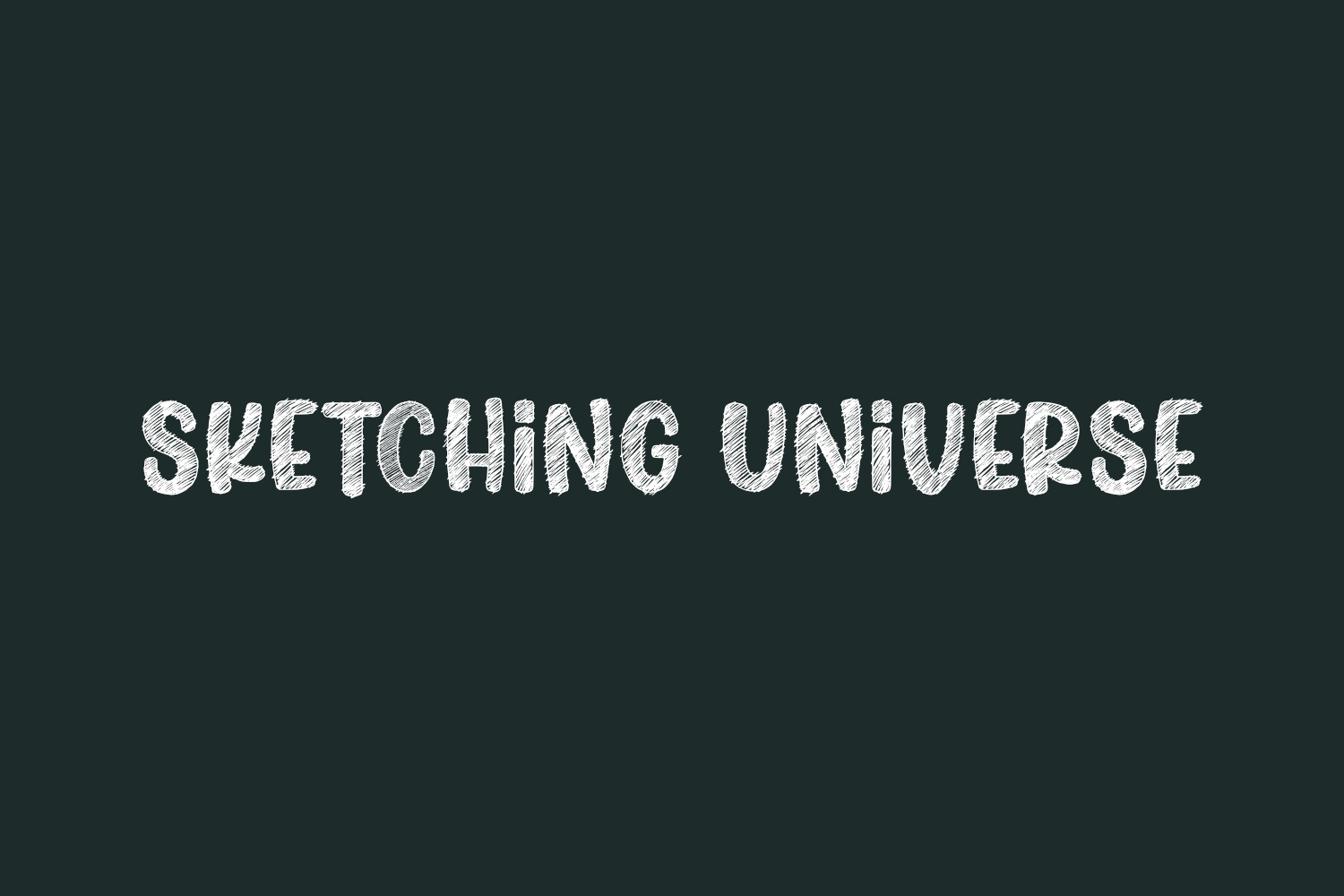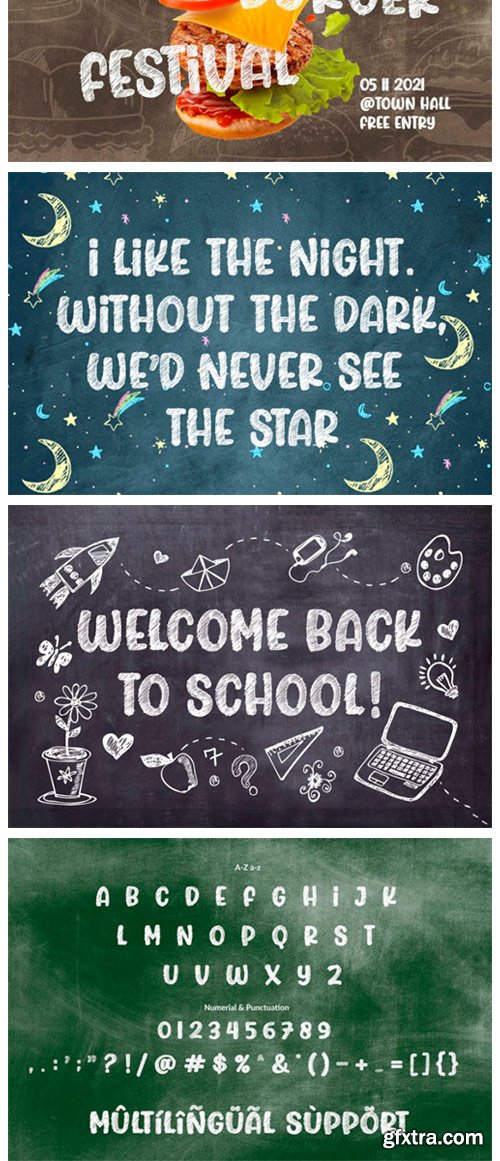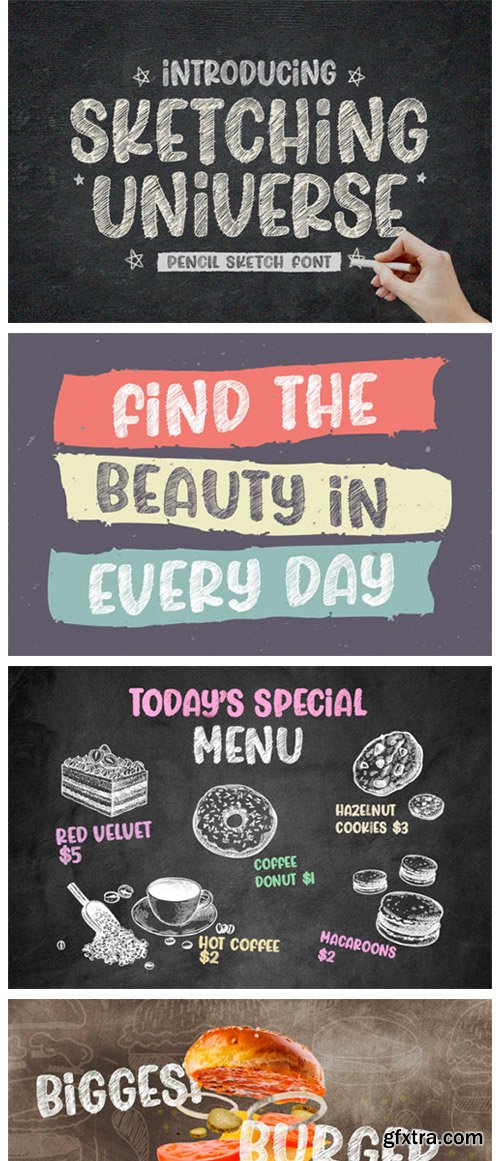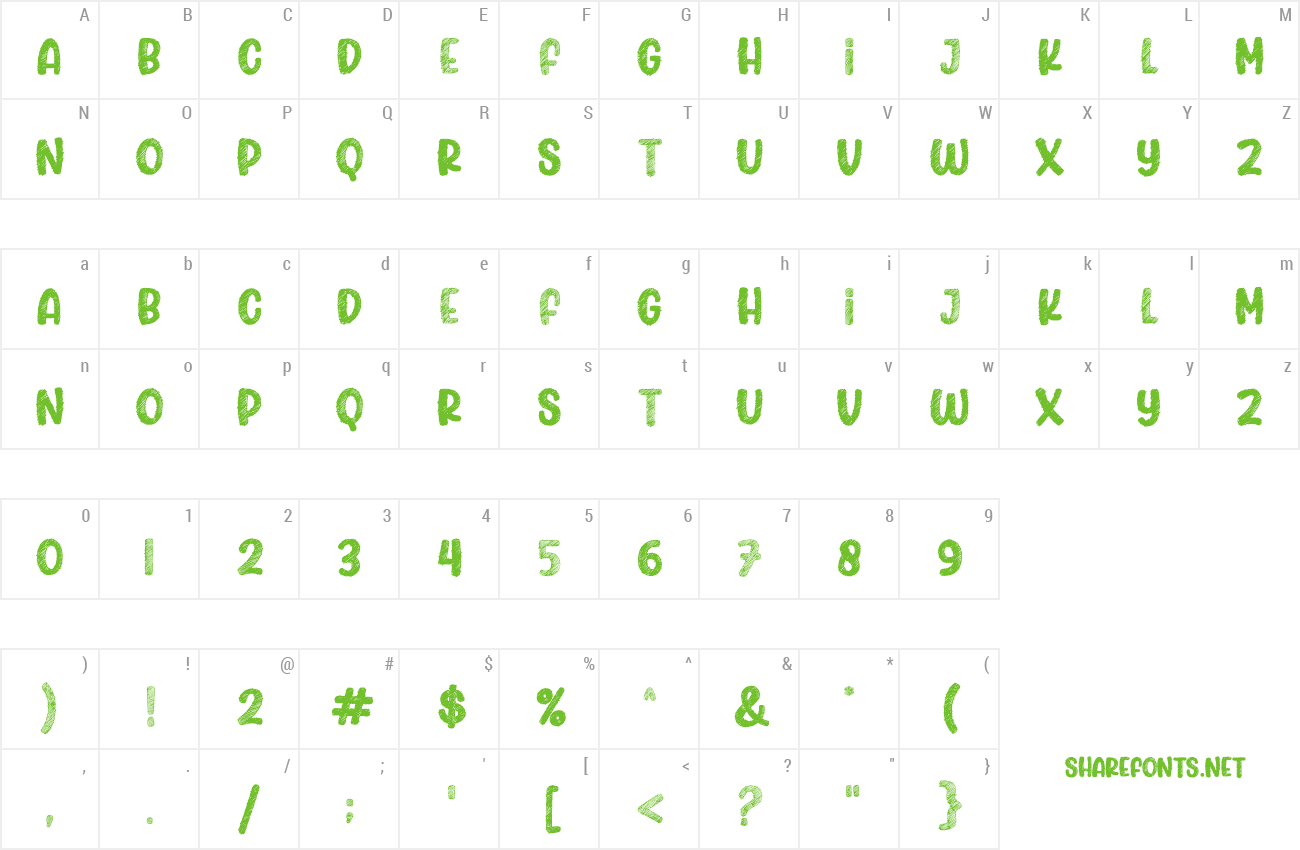
Sketching Universe Font
Sketching Universe Font - Web sketching universe is a cute and friendly outlined display font. Its a pencil sketch font style. Web sketching universe is a free font for personal use created by subectype & orenari. Web click here and download the sketching universe font · window, mac, linux · last updated 2023 · commercial licence included Web sketching universe is a cute, bubbly and friendly outlined display font. Sketching universe is a fancy type font. Whatever the topic, this font will be a wonderful asset to your font.
Web sketching universe is a free font for personal use created by subectype & orenari. Sketching universe is a fancy type font. Web sketching universe is a cute, bubbly and friendly outlined display font. Web click here and download the sketching universe font · window, mac, linux · last updated 2023 · commercial licence included Web sketching universe is a cute and friendly outlined display font. Whatever the topic, this font will be a wonderful asset to your font. Its a pencil sketch font style.
Web sketching universe is a cute and friendly outlined display font. Its a pencil sketch font style. Web sketching universe is a cute, bubbly and friendly outlined display font. Web sketching universe is a free font for personal use created by subectype & orenari. Sketching universe is a fancy type font. Web click here and download the sketching universe font · window, mac, linux · last updated 2023 · commercial licence included Whatever the topic, this font will be a wonderful asset to your font.
Its a pencil sketch font style. Sketching universe is a fancy type font. Web click here and download the sketching universe font · window, mac, linux · last updated 2023 · commercial licence included Web sketching universe is a cute, bubbly and friendly outlined display font. Whatever the topic, this font will be a wonderful asset to your font.
Web sketching universe is a cute and friendly outlined display font. Web sketching universe is a cute, bubbly and friendly outlined display font. Sketching universe is a fancy type font. Its a pencil sketch font style. Whatever the topic, this font will be a wonderful asset to your font.
Web sketching universe is a cute and friendly outlined display font. Web click here and download the sketching universe font · window, mac, linux · last updated 2023 · commercial licence included Whatever the topic, this font will be a wonderful asset to your font. Web sketching universe is a cute, bubbly and friendly outlined display font. Its a pencil.
Whatever the topic, this font will be a wonderful asset to your font. Web click here and download the sketching universe font · window, mac, linux · last updated 2023 · commercial licence included Its a pencil sketch font style. Web sketching universe is a cute, bubbly and friendly outlined display font. Sketching universe is a fancy type font.
Sketching universe is a fancy type font. Web sketching universe is a cute and friendly outlined display font. Web sketching universe is a free font for personal use created by subectype & orenari. Web sketching universe is a cute, bubbly and friendly outlined display font. Web click here and download the sketching universe font · window, mac, linux · last.
Web sketching universe is a cute, bubbly and friendly outlined display font. Its a pencil sketch font style. Whatever the topic, this font will be a wonderful asset to your font. Web sketching universe is a free font for personal use created by subectype & orenari. Web sketching universe is a cute and friendly outlined display font.
Sketching Universe Font Download
Web sketching universe is a free font for personal use created by subectype & orenari. Sketching universe is a fancy type font. Whatever the topic, this font will be a wonderful asset to your font. Web sketching universe is a cute, bubbly and friendly outlined display font. Its a pencil sketch font style.
Sketching Universe Font download free
Its a pencil sketch font style. Web sketching universe is a cute, bubbly and friendly outlined display font. Web sketching universe is a cute and friendly outlined display font. Sketching universe is a fancy type font. Web click here and download the sketching universe font · window, mac, linux · last updated 2023 · commercial licence included
Sketching Universe Font
Its a pencil sketch font style. Web sketching universe is a free font for personal use created by subectype & orenari. Sketching universe is a fancy type font. Web sketching universe is a cute, bubbly and friendly outlined display font. Whatever the topic, this font will be a wonderful asset to your font.
Sketching Universe free font
Web sketching universe is a cute and friendly outlined display font. Web click here and download the sketching universe font · window, mac, linux · last updated 2023 · commercial licence included Its a pencil sketch font style. Whatever the topic, this font will be a wonderful asset to your font. Web sketching universe is a free font for personal.
Sketching Universe Is A Fancy Type Font.
Whatever the topic, this font will be a wonderful asset to your font. Web click here and download the sketching universe font · window, mac, linux · last updated 2023 · commercial licence included Its a pencil sketch font style. Web sketching universe is a cute and friendly outlined display font.
Web Sketching Universe Is A Cute, Bubbly And Friendly Outlined Display Font.
Web sketching universe is a free font for personal use created by subectype & orenari.